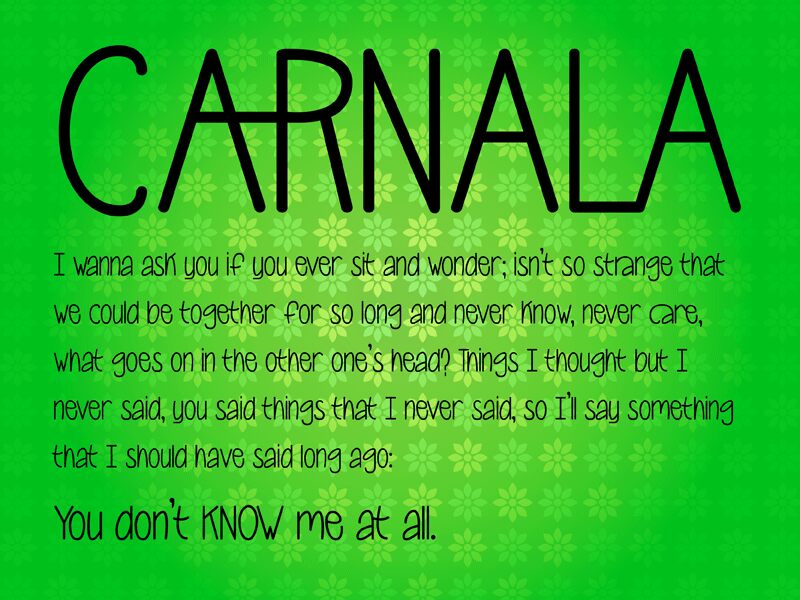
Carnala, created in Tampico, Mexico by Rodrigo Navarro Bolado, is a free handwritten font with tall, loosely drawn letters and an airy monoline stroke. Its narrow forms bend and lean from character to character, and the oversized curves give the writing a relaxed, slightly eccentric silhouette.
The casual hand-lettered style points toward independent music and editorial design, making it useful for album artwork and magazine features. It also suits cafe branding and event posters, where the irregular shapes can feel personal rather than corporate. Across settings, long strokes and uneven proportions give the directness of a handwritten note.